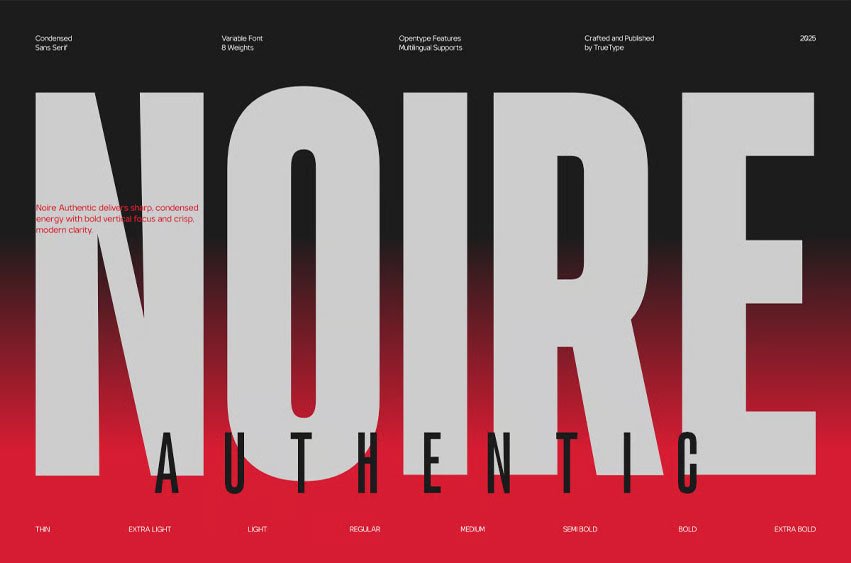
Noire Authentic Font is a condensed sans serif built to amplify the bold, cinematic mood of the poster: sharp, vertical, and charged with energy. Its towering letterforms slice through the gradient like light in a dark room, combining strict geometry with an atmospheric glow that feels raw and modern at the same time.
Every stroke is tightly controlled—narrow widths, deep counters, and crisp edges—so the type stays powerful and legible even when it dominates the entire frame. This creates a sense of tension and drama that fits oversized headlines, music visuals, and high‑impact brand graphics.
As a variable font with eight weights from Thin to Bold, TBJ NOIRE AUTHENTIC lets you move effortlessly from ghost‑like, transparent titles to dense, heavy statements in one continuous spectrum. OpenType features and multilingual support keep it versatile for global use, from album covers and tour posters to contemporary noir‑style opening sequences.